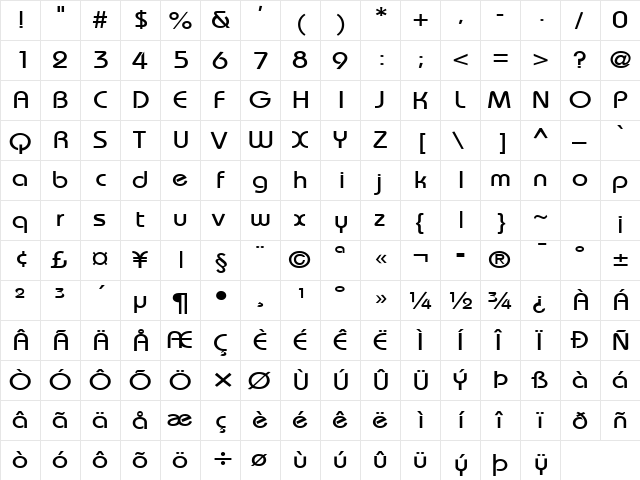
Bimini-Extended Normal
Design Context for Bimini-Extended Typeface
Bimini-Extended takes a measured approach to typography — its balanced proportions and neutral character make it a reliable workhorse for both digital and print work.